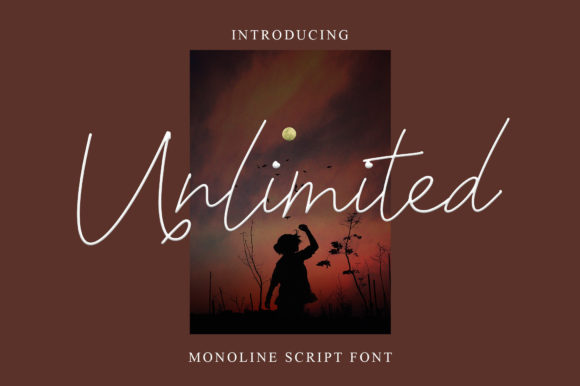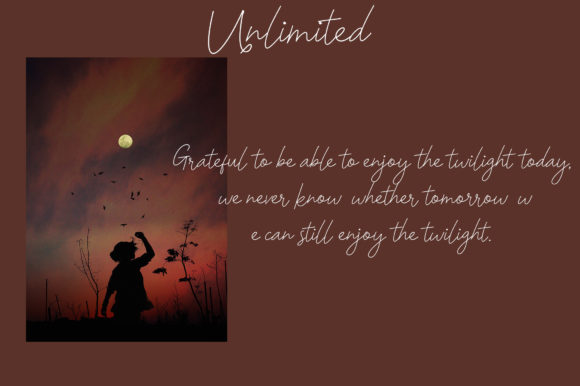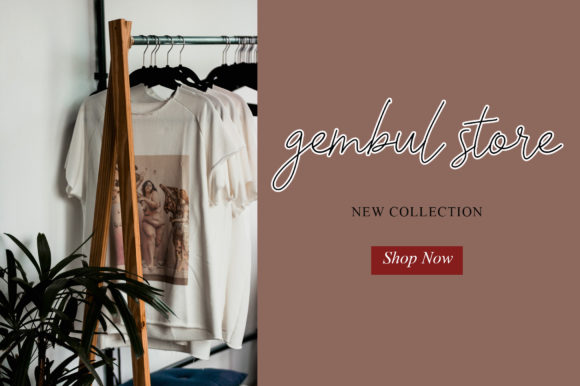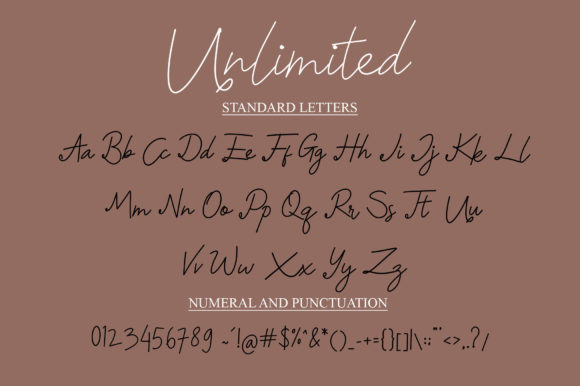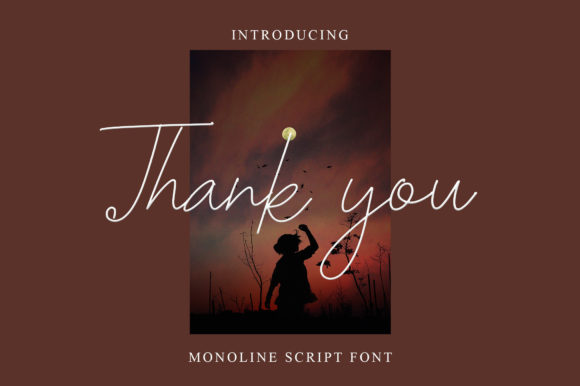
Unlimited Font
About Unlimited Font
Introducing “Unlimited,” a sweet and flowing script font that exudes elegance and versatility. With its thin letterforms and graceful curves, this font is perfect for creating stunning designs for various occasions.
“Unlimited” offers a captivating and versatile style that can be applied to a wide range of projects. Its delicate and flowing letterforms add a touch of sophistication and charm to wedding invitations, making them visually appealing and memorable. The graceful strokes and subtle details of this font will enhance the overall aesthetic of your stationary art, creating beautiful and artistic pieces.
Not only is “Unlimited” ideal for printed materials, but it also shines in the digital realm. Its eye-catching style is perfect for creating engaging social media posts that stand out from the crowd. Whether you’re designing graphics for Instagram, Facebook, or any other platform, this font will help you capture attention and leave a lasting impression.
The versatility of “Unlimited” extends beyond wedding invitations and social media posts. It can be used to create elegant logos, branding materials, quotes, greeting cards, and more. Its thin letterforms add a sense of sophistication and modernity to any design, while the flowing and gentle curves create a sense of harmony and grace.
With “Unlimited,” you have the freedom to unleash your creativity and bring your ideas to life. Its versatility allows you to explore different design styles, from minimalistic and clean to elaborate and decorative. The font’s thin letterforms provide a refined and polished look, making it suitable for both formal and informal projects.
Fall in love with the incredibly versatile style of “Unlimited” and let it inspire you to create stunning designs. Whether you’re working on wedding invitations, stationary art, social media posts, or any other project, this font will add a touch of elegance and beauty. Embrace the limitless possibilities of “Unlimited” and elevate your designs to new heights.